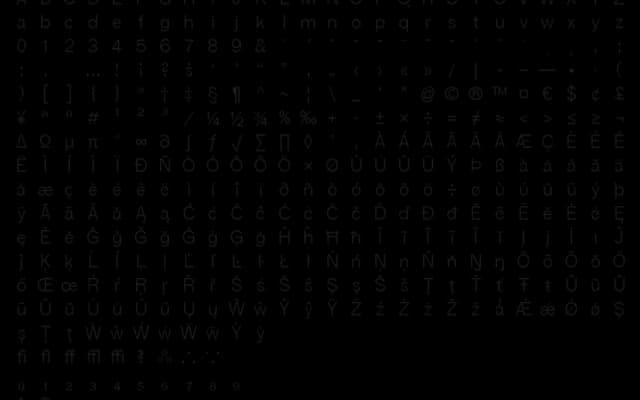
F Grotesk
A three-weight grotesque by Radim Peško, drawn with bold, lively forms rooted in late nineteenth-century anonymous sans serifs, and used on BBC News headlines.
Three weights with matching italics, each including tabular and proportional figures, give F Grotesk range across text and display settings. Its forms are deliberately bold and singular, drawing on the unnamed grotesques of the 1880s and 1890s without directly reviving any single source. Real-world use on BBC News headlines speaks to its credibility at large sizes in demanding editorial contexts.
Explicitly linked to late nineteenth-century anonymous sans serifs, placing it firmly in the grotesque tradition with a bold, lively contemporary interpretation.